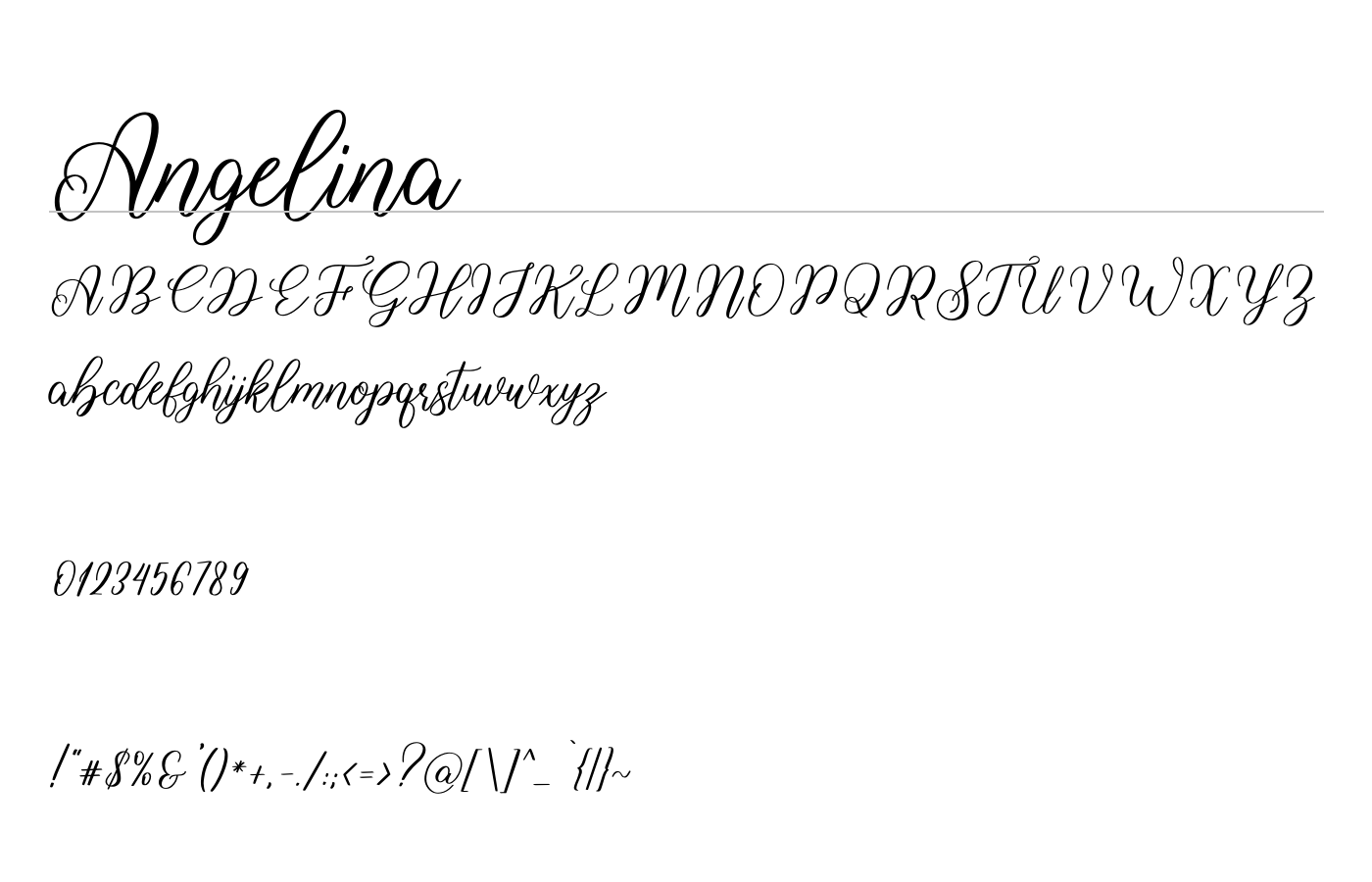
Angelina is a delicate and elegant script font featuring graceful, flowing letterforms with a light weight and high contrast in thin strokes. Its refined, handwritten style makes it ideal for invitations, branding, and projects that seek a sophisticated, feminine touch. This font shines in uses where a romantic or personal feel is desired, such as wedding stationery and luxury packaging.
Angelina Font
About Angelina Font
| Font family | Angelina Font |
| Designer | Typesthetic Studio - Hamzah Muhamad Ihsan - Jakarta (INA) |